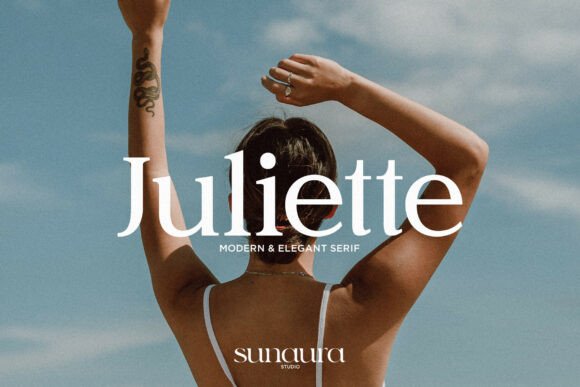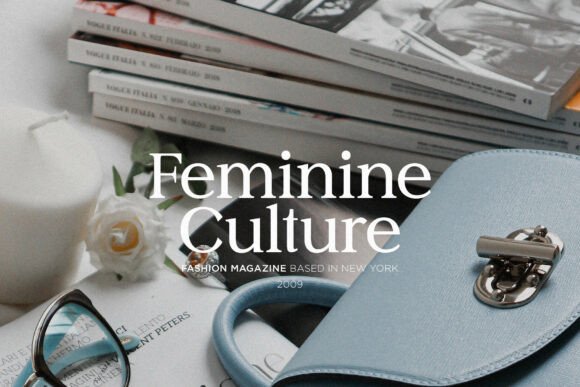
Immerse in the sophistication of Juliette, a contemporary yet elegant serif typeface that effortlessly enhances your creative projects. This versatile font is the perfect final touch, whether it’s for memorable logos, striking t-shirt designs, compelling magazine headers, or eye-catching website banners. Juliette provides over 250+ unique glyphs for exceptional design versatility.
With a comprehensive blend of uppercase and lowercase letters, numbers, and symbols, this font amplifies your creativity. Experience versatility as Juliette flawlessly accommodates multilingual text, making it a globally compatible typeface. Experience the power and elegance of Juliette, the typeface designed to leave a lasting impression.